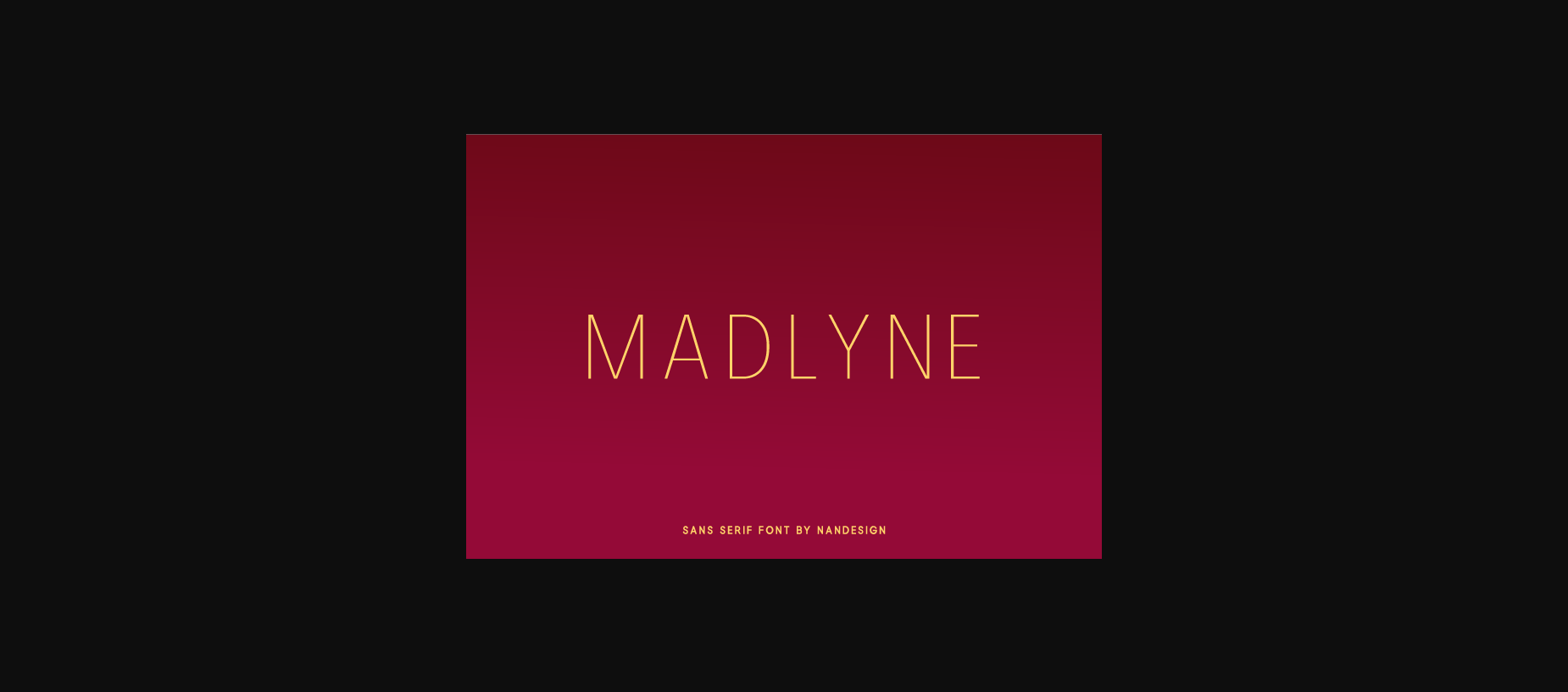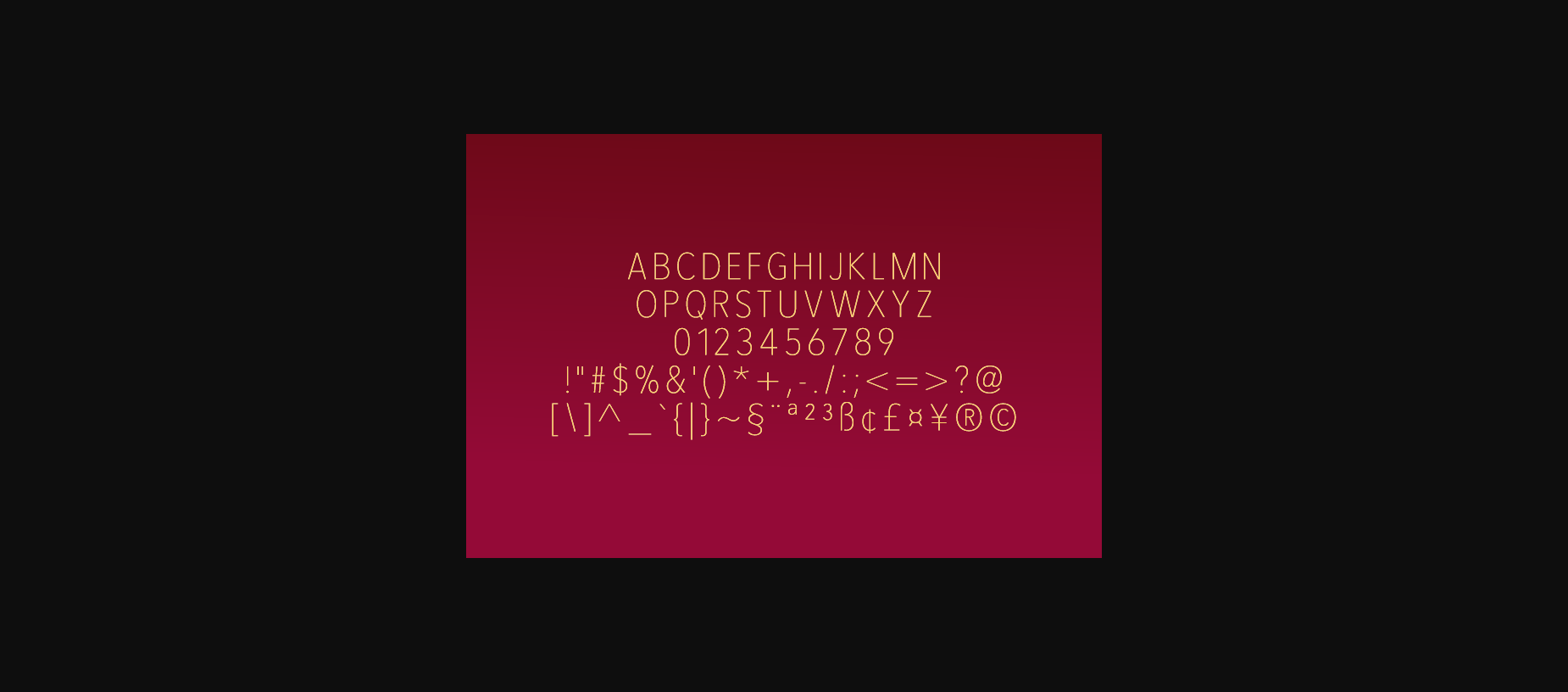
HomeSans Serif FontsMadlyne Font Sans Serif Fonts Madlyne Font FacebookXPinterestWhatsApp 1 of 4 ... Madlyne Font Poster 2... Madlyne Font Poster 3... Madlyne Font Poster 4... About Madlyne Font Madlyne is a simple and casual sans serif font with an undeniably clean feel. With its neat and beautiful arrangement of letters, this typeface will look outstanding in both formal and non-formal designs. DOWNLOAD NOW People also explored Galeyala Font Meadow Font Wandhen Font Sweet Pastel Font Father Santa Font Doodly Font Home Kitchen Font Half Soldier Font Mellodyst Font 280 0 TagsMadlyneMadlyne Font Previous articleTylaz FontNext articleCorela Font LEAVE A REPLY Cancel reply Comment: Please enter your comment! Name:* Please enter your name here Email:* You have entered an incorrect email address! Please enter your email address here Website: Save my name, email, and website in this browser for the next time I comment. Personal Use Free Calega Personal Use Free Read more about this font Numberpile Personal Use Free Read more about this font Unlock Endless Creativity with the FREE September Clipart Huge Bundle (Valued at $700!) Personal Use Free Read more about this font Rookie Mastering Personal Use Free Read more about this font BLOG Free vs Paid Fonts: Why Investing in Premium Fonts Is Worth It Free vs Paid Fonts: Why Premium Fonts Are Worth It in 2025 The debate of free vs paid fonts continues in the design world. While... The 10 Best Handwriting Fonts to Add Personality to Your Designs Best Fonts for YouTube Videos: Make Your Thumbnails Stand Out Exploring Font Trends